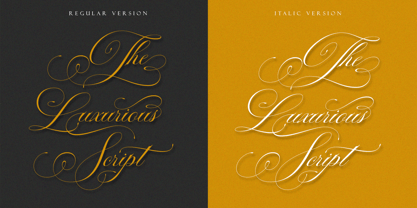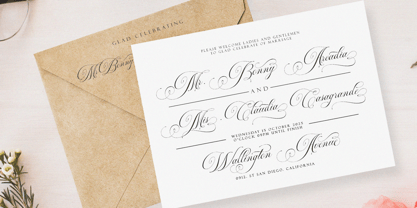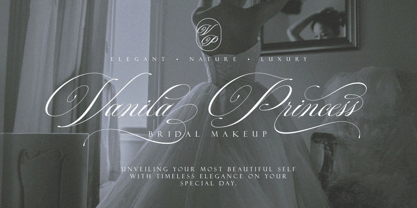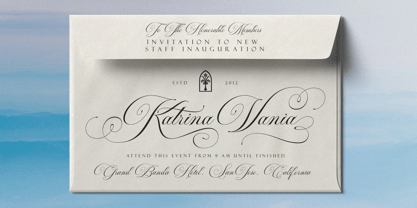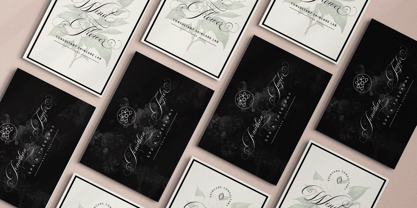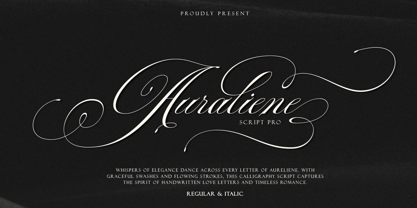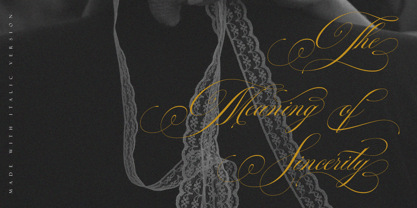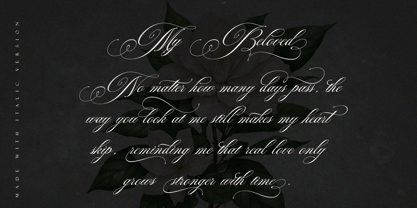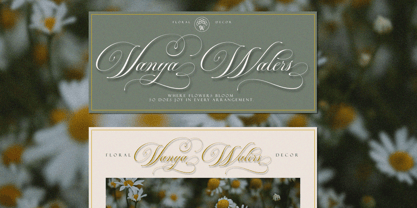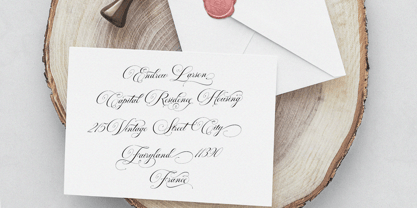
Auraliene Script Pro
by Romie Creative
The Auraliene Script Pro Font Family was designed by Romi Rahmadi and published by Romie Creative. Auraliene Script Pro contains 2 styles and family package options.
Auraliene Pro is a script font that comes with very beautiful changing characters, a kind of classic decorative copper script with a modern touch, designed with high detail to bring stylish elegance. Auraliene Pro is attractive as a typeface that is smooth, clean, feminine, sensual, glamorous, simple and very easy to read, because there are many fancy letter connections. I also offer a number of viable style alternatives for many letters. The classic style is perfect to be applied in various formal forms such as invitations, labels, restaurant menus, logos, fashion, make up, stationery, novels, magazines, books, greeting / wedding cards, packaging, labels or any type of advertising purpose.